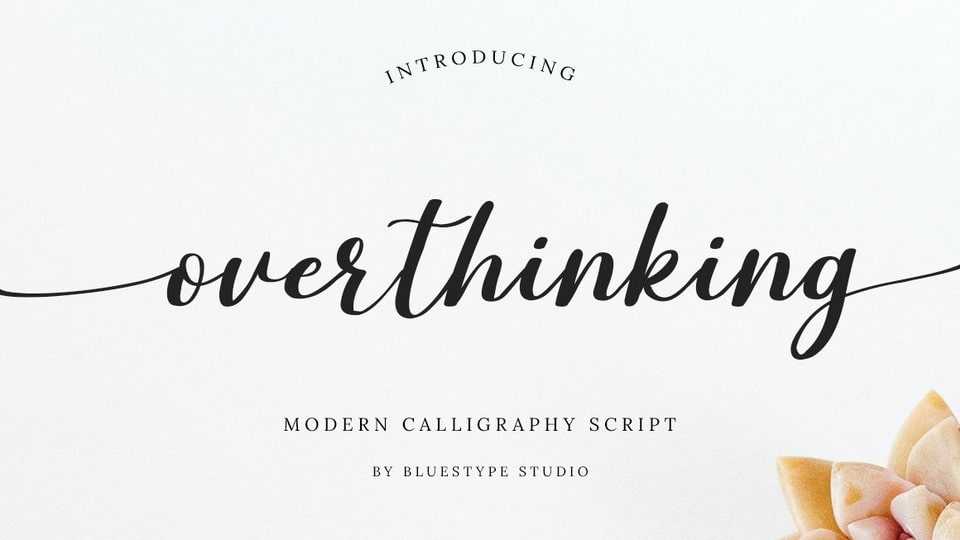
Download Overthinking font, a calligraphy typeface that is written by hand, has elegant and beautiful curves. Overthinking font is PUA encoded, which means you can access all of the glyphs and swashes with ease!